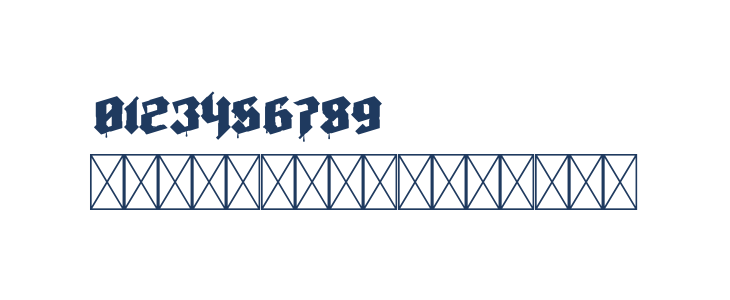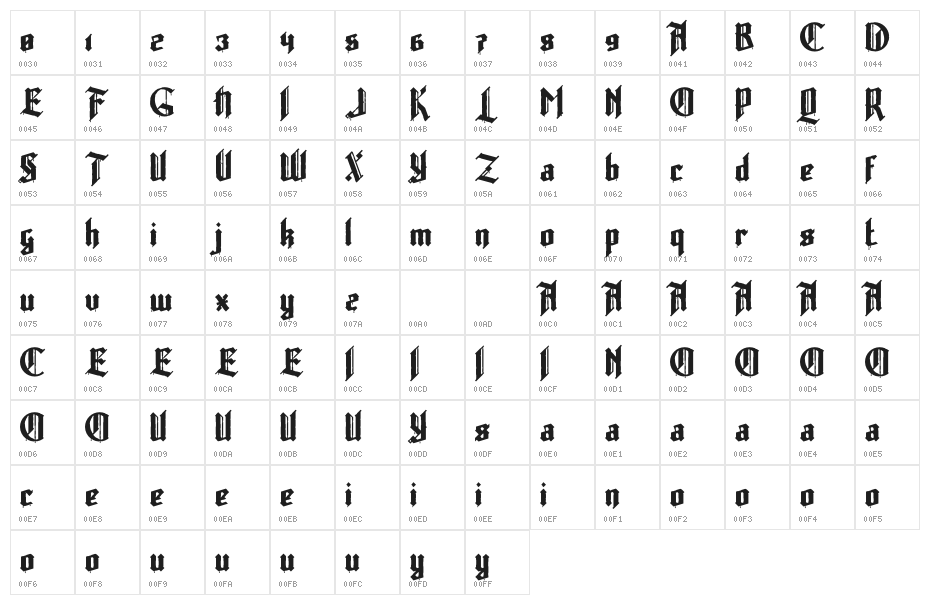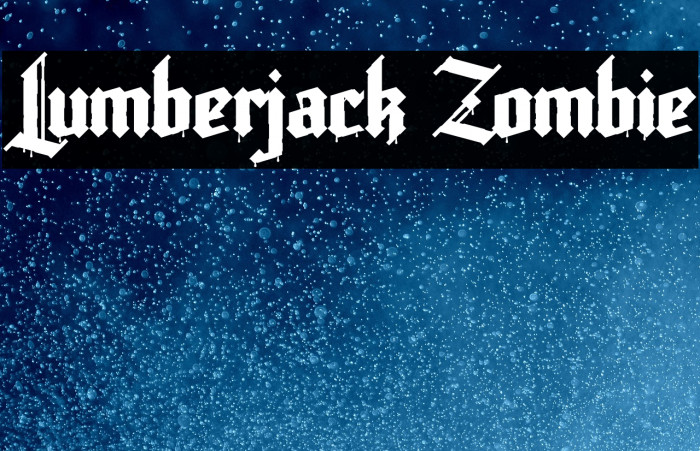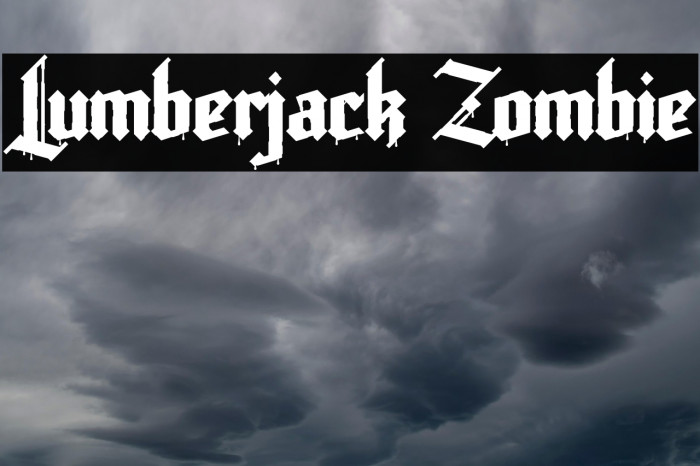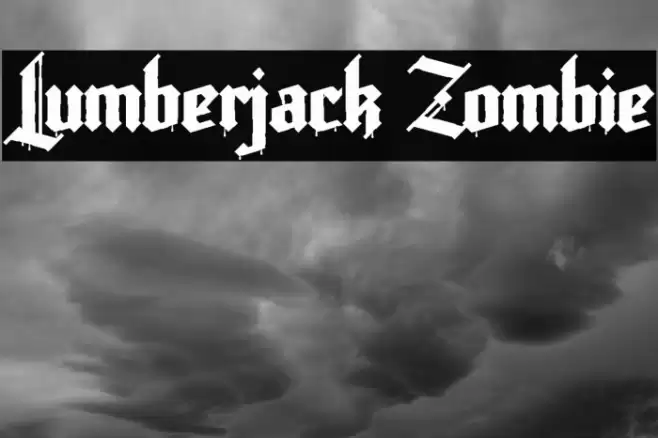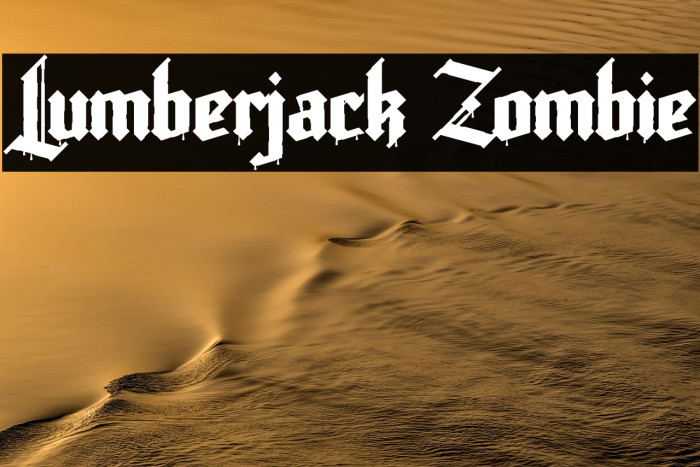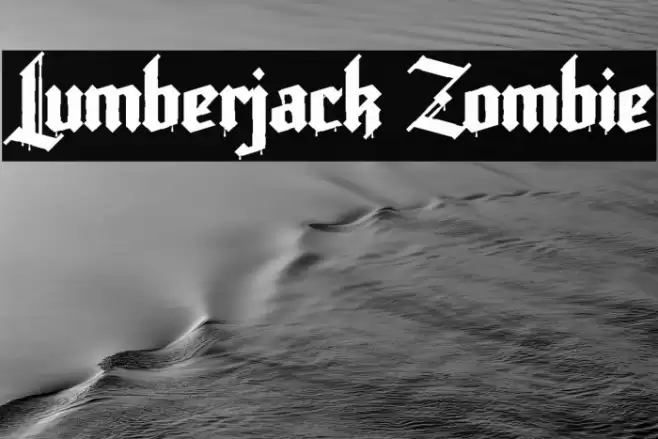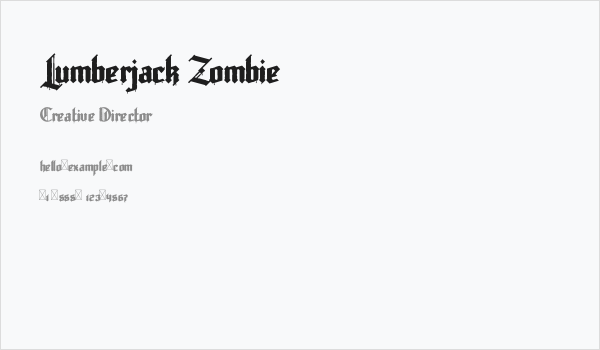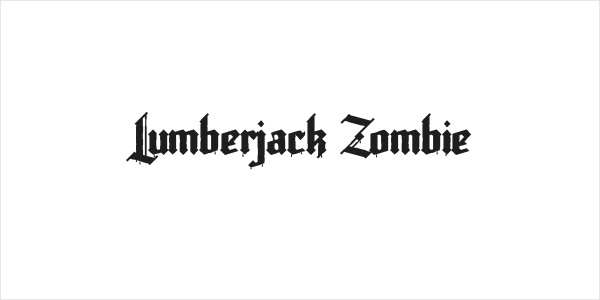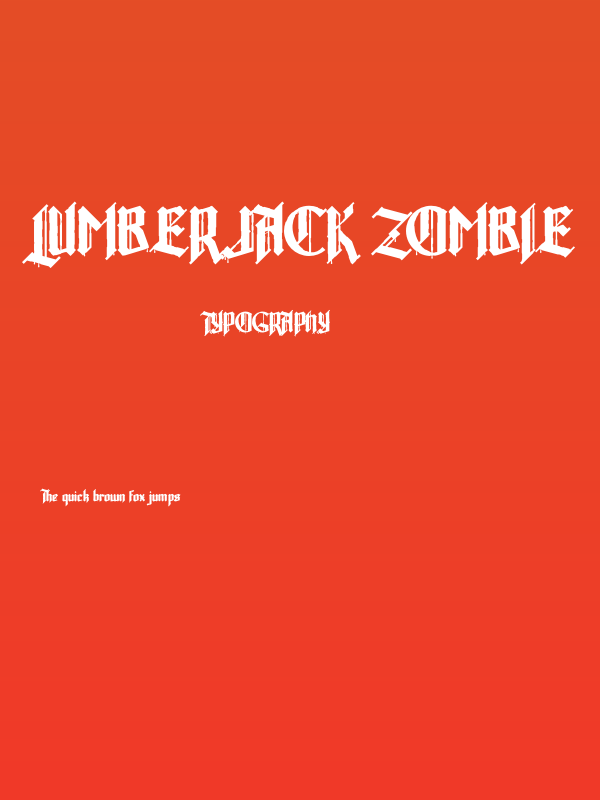
Lumberjack Zombie Font
Lumberjack Zombie Description
This font features a bold and striking design with a distinct Gothic or Blackletter style. The characters are sharp and angular, with dramatic strokes that create a sense of intensity and power. The uppercase letters are particularly elaborate, with intricate details that enhance the font's decorative appeal. The lowercase letters maintain the same boldness, ensuring consistency throughout the typeface. The numbers and special characters follow the same stylistic approach, making this font suitable for projects that require a strong visual impact.
| Proposed Projects | Ideal for horror-themed designs, posters, album covers, and branding that requires a dramatic and intense aesthetic. |